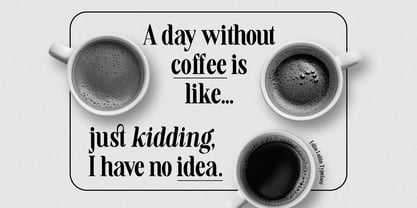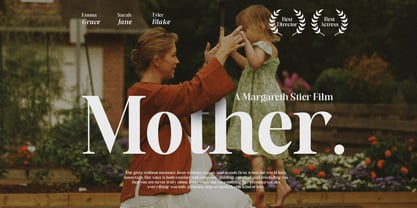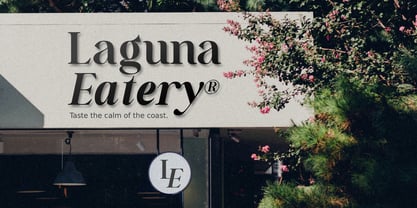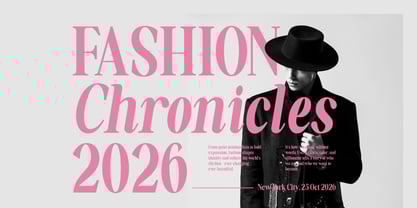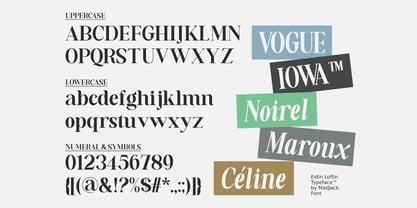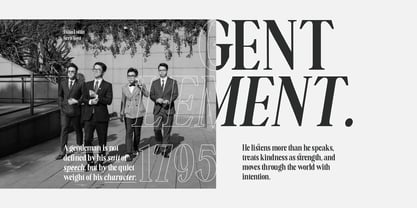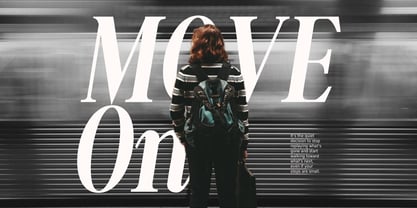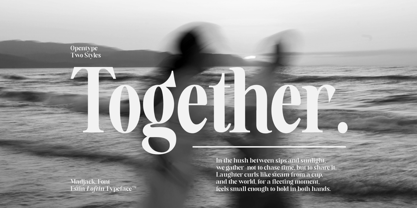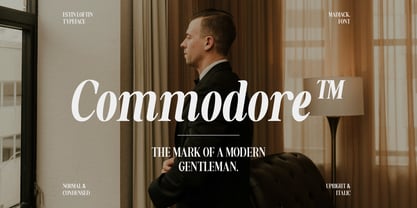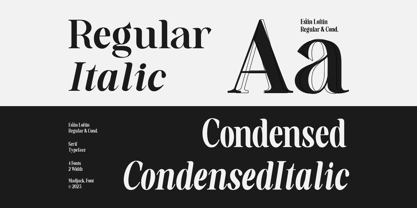
Estin Loftin
The Estin Loftin Font Family was designed by Zaki Muhammad and published by madjack.font. Estin Loftin contains 4 styles.
Estin Loftin is a sophisticated serif typeface that blends classic elegance with a modern aesthetic. Designed with high contrast strokes and refined details, it is part of an elegant type family from Madjack. Font. ✨ Key Features: Classic Serif Structure: Sharp, clean serifs provide a timeless and professional look. High Contrast Strokes: The mix of thick and thin lines gives the font a luxurious and dramatic appearance. Regular & Italic Blend: The combination of upright and italic styles (as seen in “Estin Loftin”) adds versatility and visual interest. Modern Touches: Despite its classic roots, subtle curves and unique letterforms (like ‘f’, ‘t’, and ‘n’) introduce a contemporary flair. Elegant Presentation: Perfect for projects that require a refined and stylish tone. 🎨 Best Suited For: Luxury branding and logos Editorial headlines and fashion magazines Wedding invitations and stationery High-end product packaging Elegant posters and brochures Let me know if you’d like me to help you create a sample text or download this font!